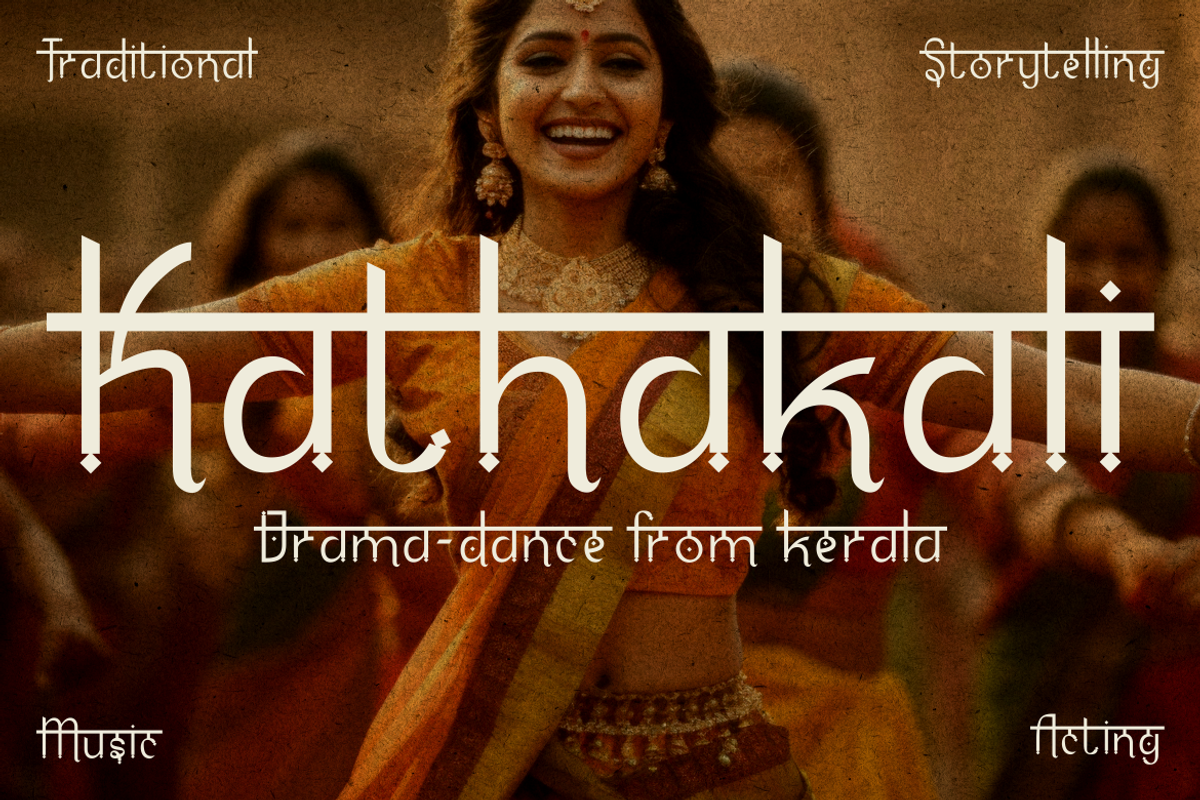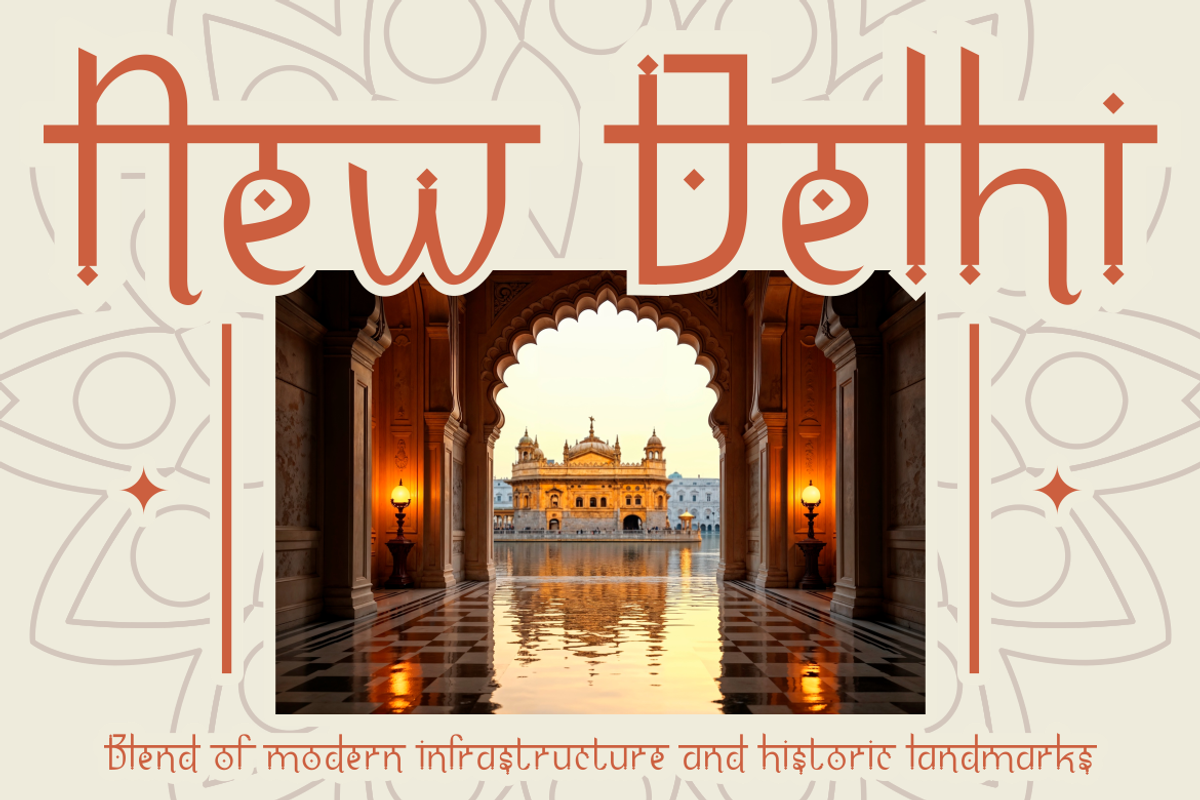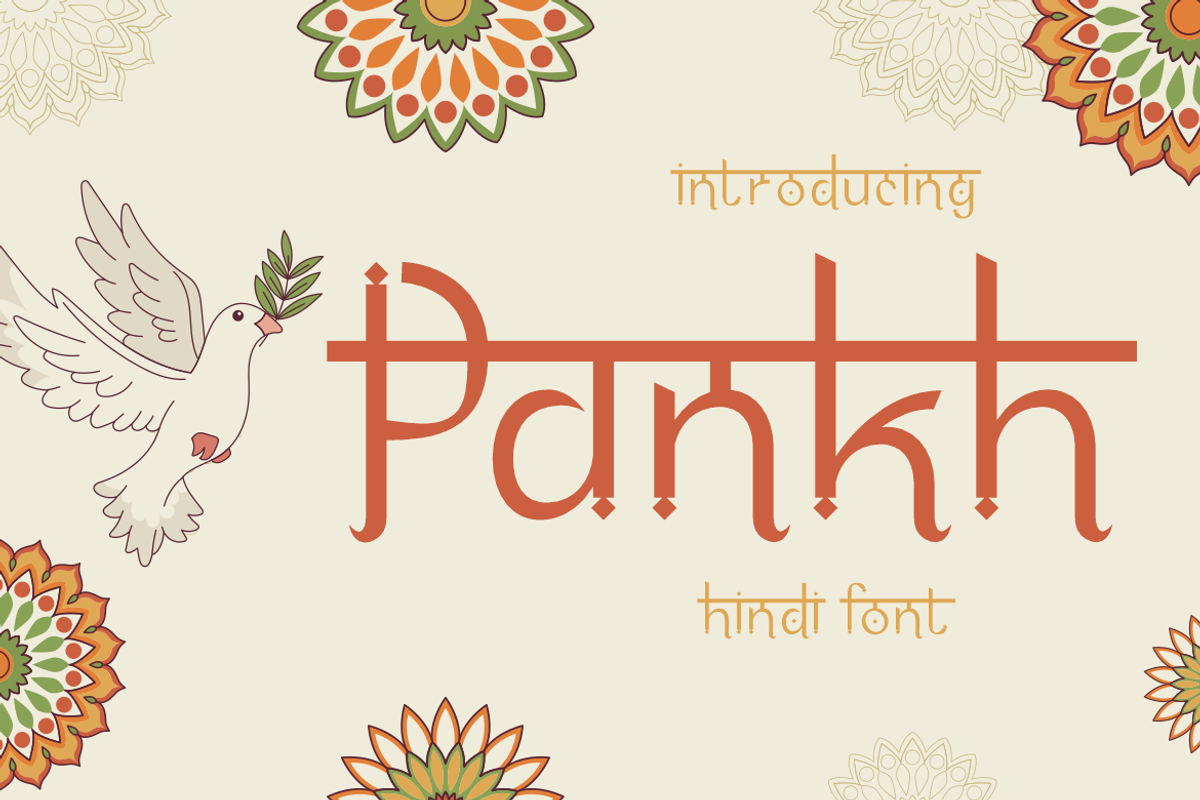
Pankh Hindi Font
Pankh Hindi Font is a culturally rich typeface inspired by the beauty of Indian scripts and traditional Sanskrit forms. The font combines elegant curves, extended horizontal strokes, and subtle diamond-shaped details, creating a design that blends authenticity with modern usability. Each character reflects a visual echo of Hindi calligraphy while maintaining legibility for digital and print use. Pankh Hindi Font carries a timeless aesthetic, making it perfect for branding, packaging, invitations, cultural posters, magazine titles, or even cinematic projects. With its handcrafted influence and decorative details, the font instantly brings an air of heritage, storytelling, and authenticity to your designs.
Beyond its cultural roots, this font offers versatility across modern creative applications. It adapts seamlessly to logos, book covers, editorial layouts, or event promotions. The high-contrast strokes and extended character design ensure bold readability, while the unique accents provide a distinctive touch compared to common display fonts. Whether you are designing for a festival poster, a heritage brand, or an elegant wedding invitation, Pankh Hindi Font offers a perfect balance between tradition and contemporary aesthetics. Use it to express depth, identity, and cultural richness in every creative project.